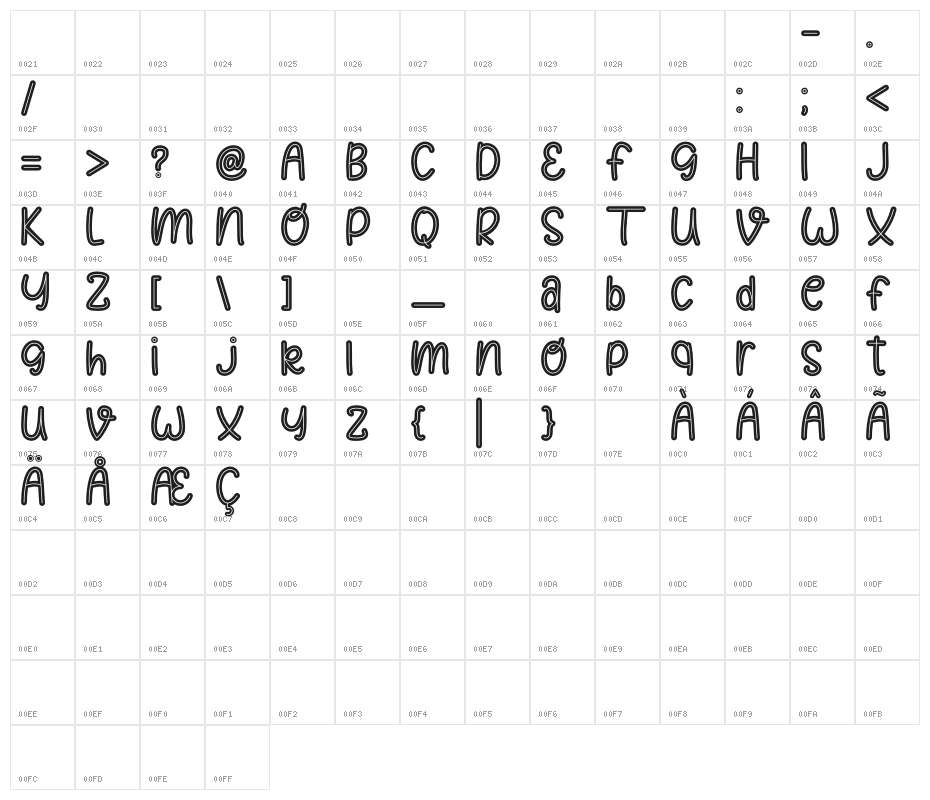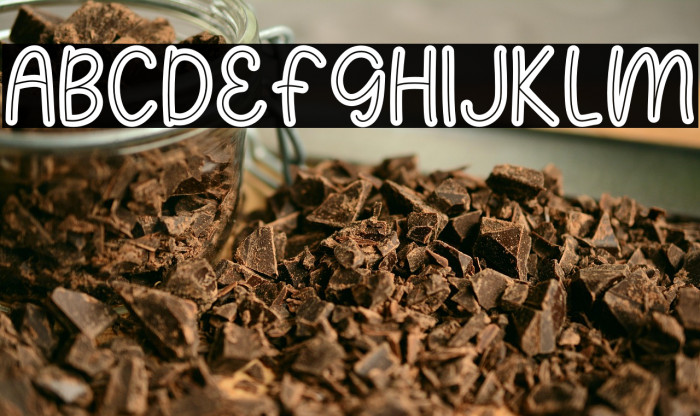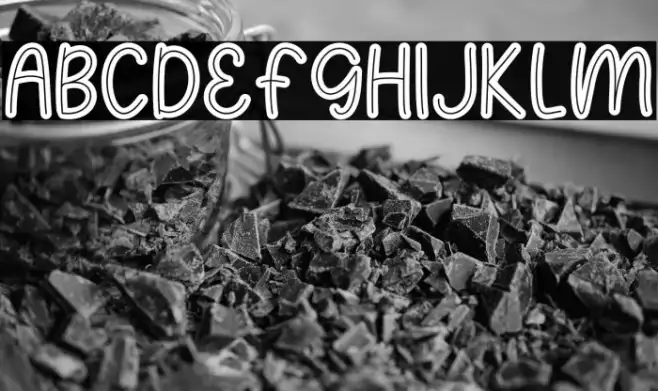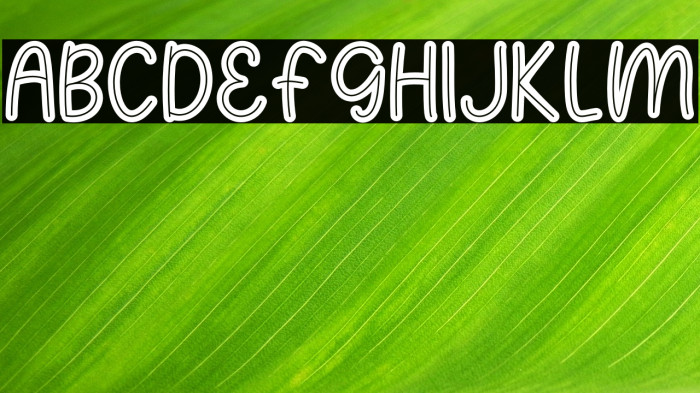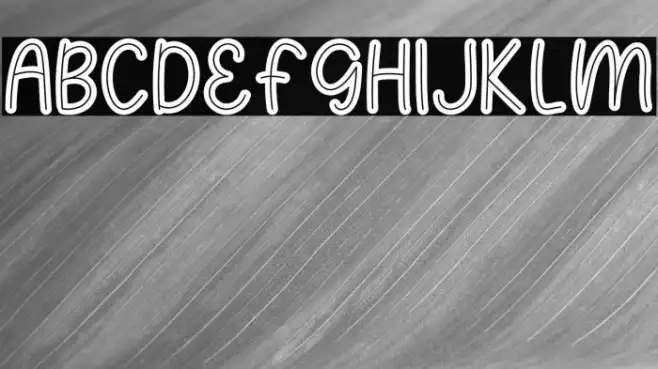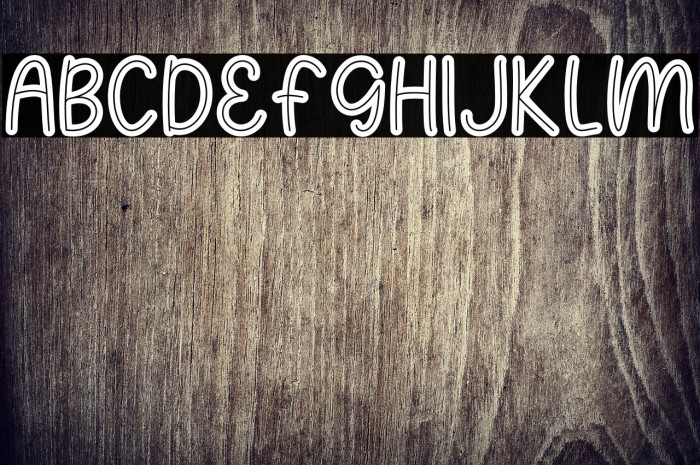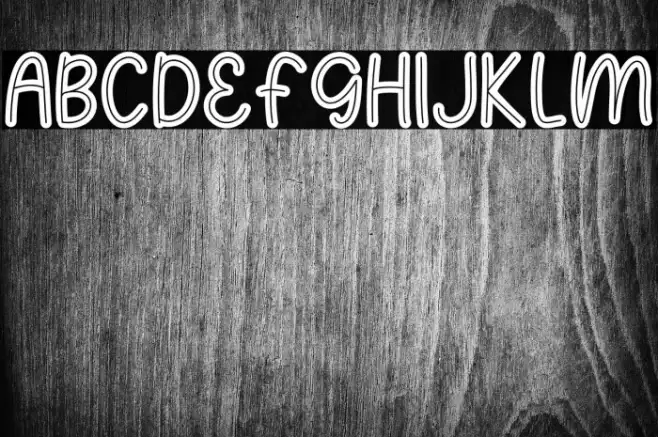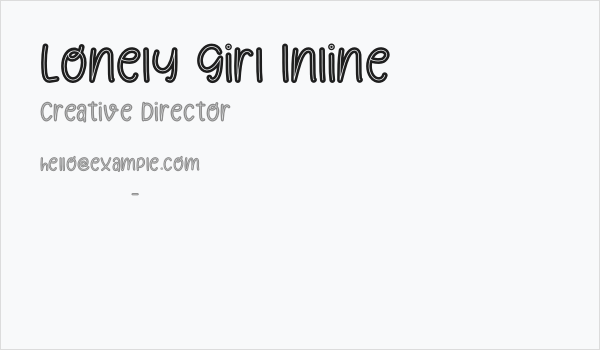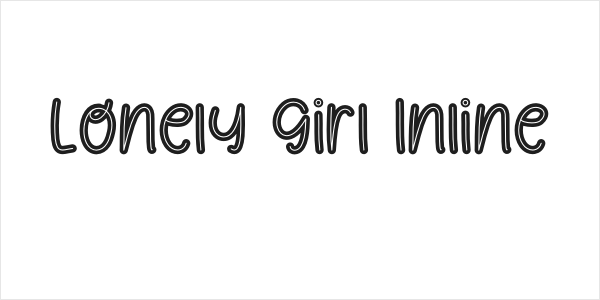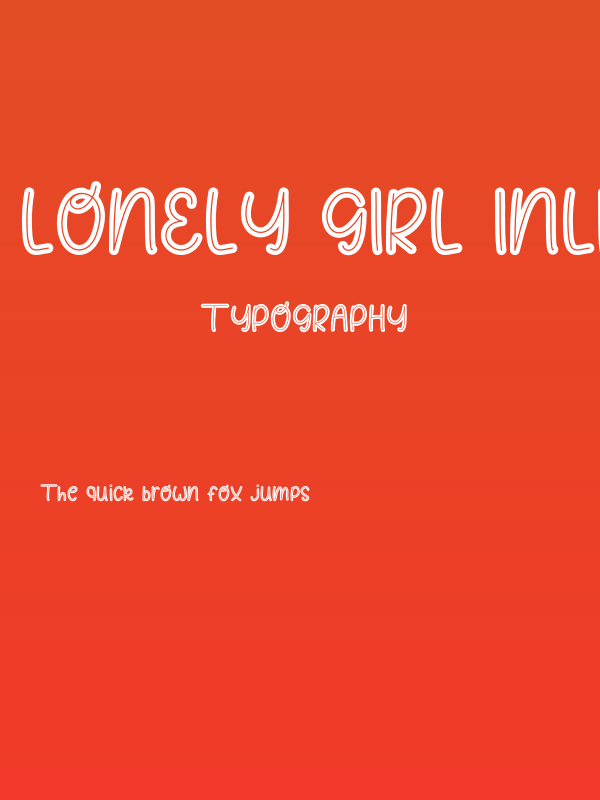
Lonely Girl Inline Font
Lonely Girl Inline Description
This font features a playful and whimsical design with an inline style that adds depth and character. The letters are rounded and slightly irregular, giving them a hand-drawn appearance. The uppercase and lowercase letters maintain a consistent style, with smooth curves and a friendly, approachable look. The inline detail creates a shadow effect, enhancing the visual interest and making the text stand out. This font is perfect for projects that require a fun and informal touch, such as children's books, greeting cards, or playful branding. The characters are well-spaced, ensuring readability while maintaining the unique artistic flair.